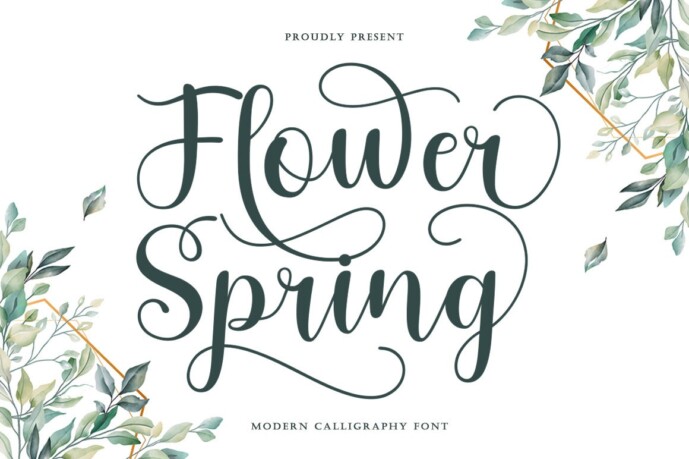
Flower Spring Font
Flower Spring Script is a modern calligraphy font featuring basic variations, smooth lines, and classic and elegant touch.
Flower Spring font was inspired by the classic calligraphy concept and become more modern.
Flower Spring is attractive because it is sleek, clean, feminine, sensual, glamorous, simple, and very easy to read because there are many fancy letter joints. Classic styles are very suitable to be applied in various formal forms such as invitations, labels, restaurant menus, logos, fashion, makeup, stationery, novels, magazines, books, greeting/wedding cards, packaging, labels, or all kinds of advertising purposes.